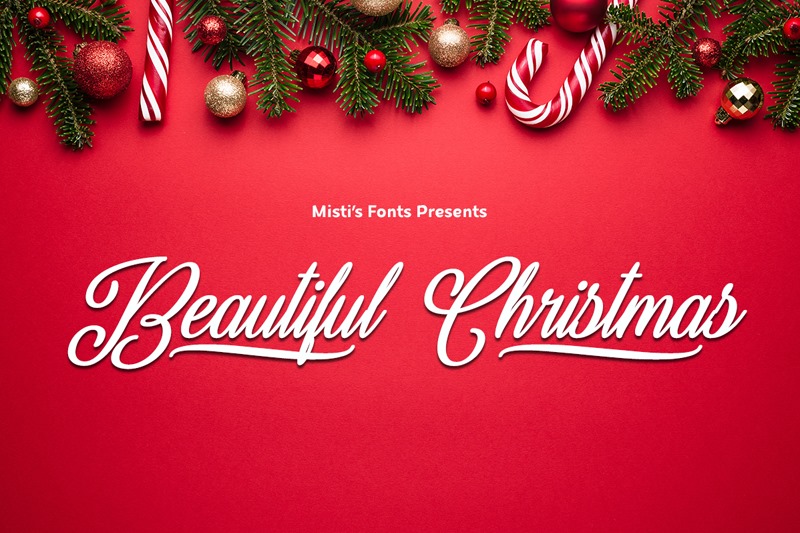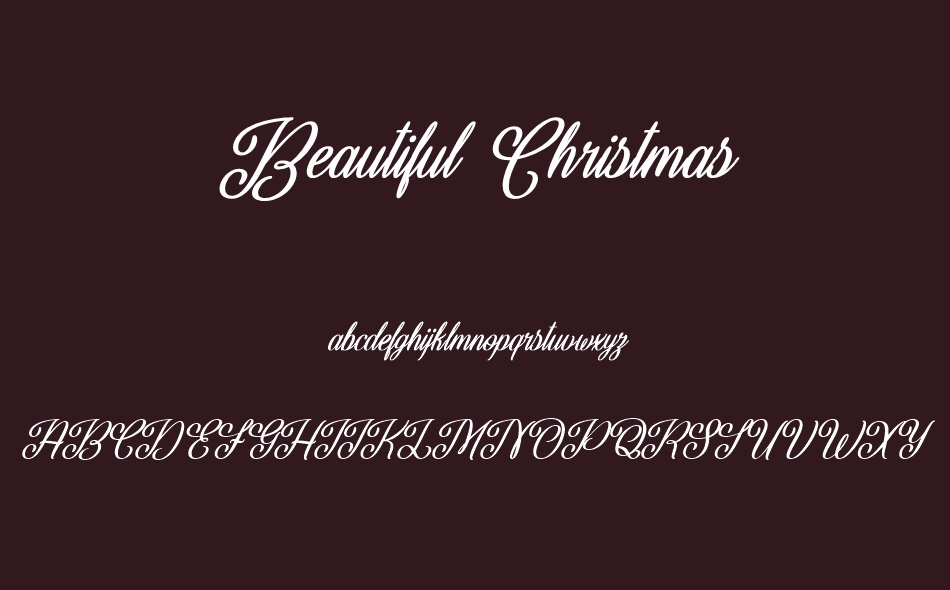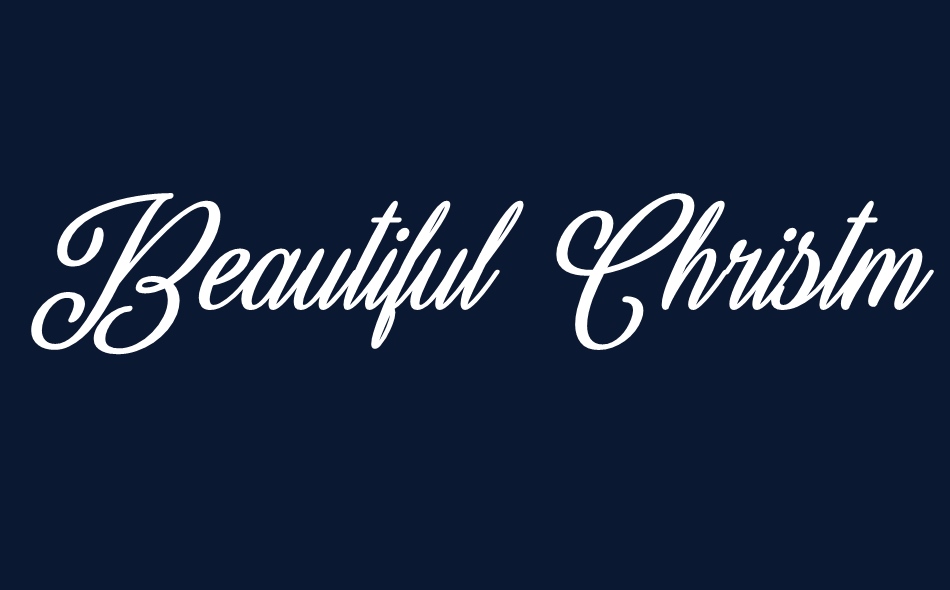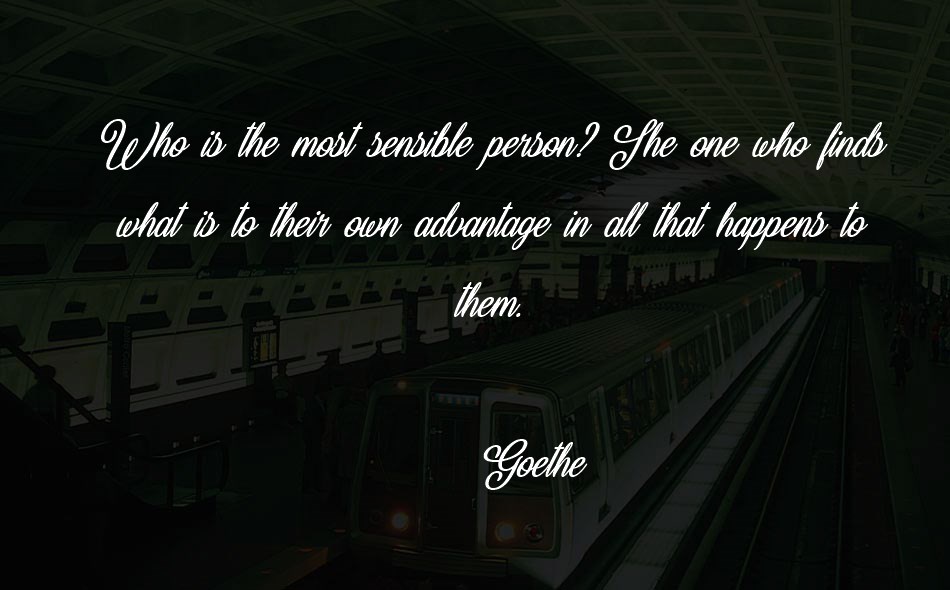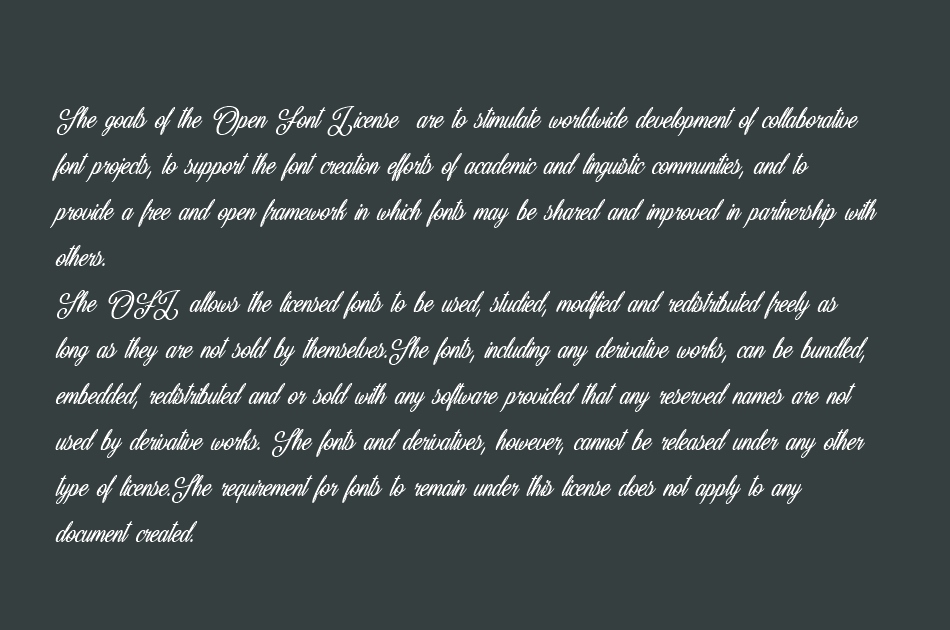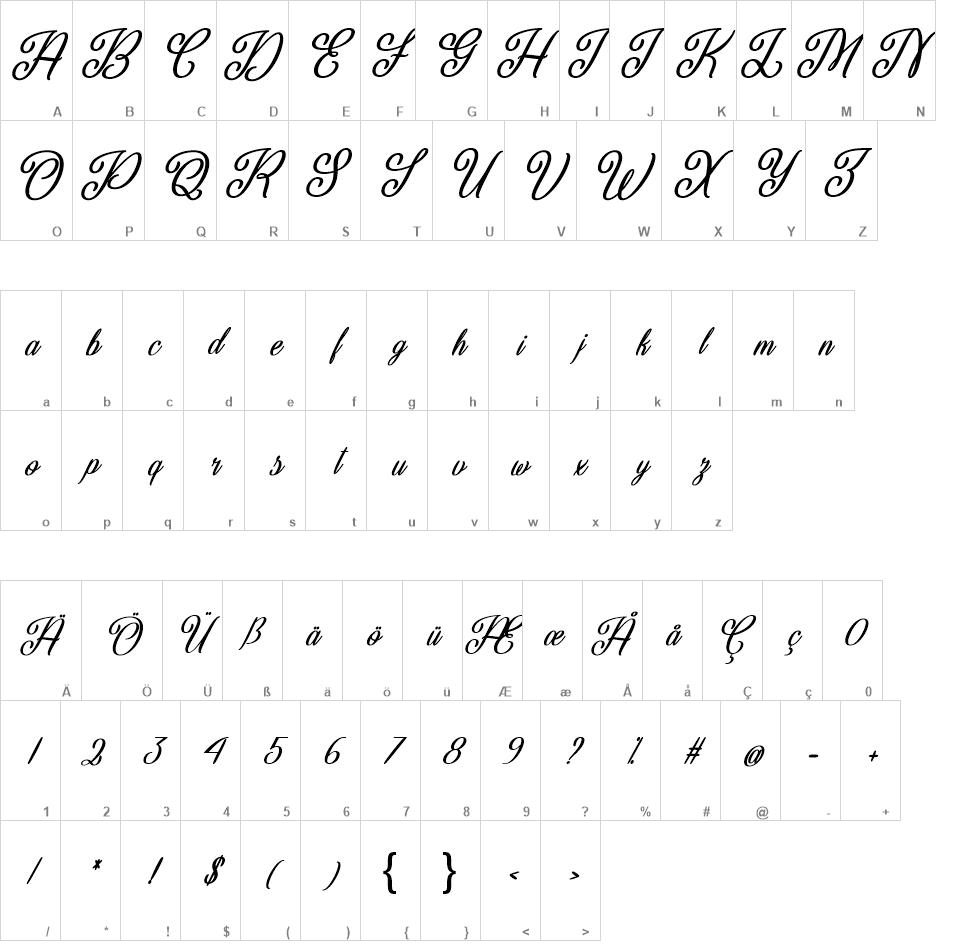
Beautiful Christmas font
Introducing Beautiful Christmas font, a slanted calligraphy typeface perfect for adding elegance and festivity to your holiday designs! This font features delicate strokes and flourishes that capture the essence of the holiday season.
Beautiful Christmas font is perfect for creating greeting cards, invitations, and other festive designs. Its elegant and graceful curves will add a touch of sophistication to your projects, while its festive flair will capture the joy and warmth of the season.